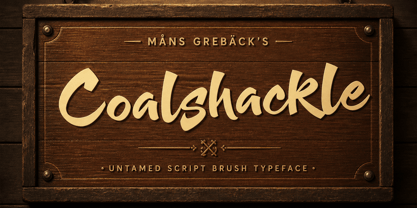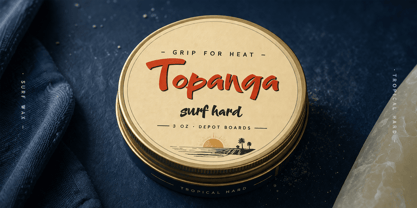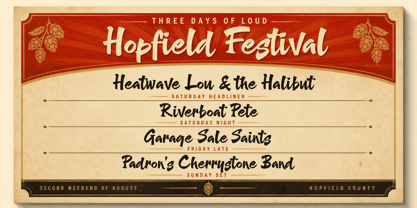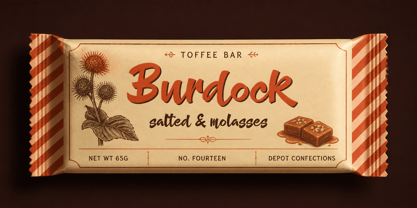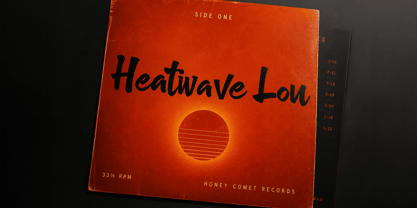
Coalshackle
Coalshackle is a paint-loaded brush script with chunky upright strokes.
The lettering moves like wet paint dragged across rough wood — heavy at the head of each letter and pulled to a slight tail at the foot. The corners are blunt and the joints unfussed. It feels like a working font: friendly enough for a hot-sauce label, blunt enough for a Saturday-night fight card, at home on a hand-painted depot sign or the side panel of a tour van.
The font is built with advanced functionality and guaranteed top-notch quality, containing stylistic and contextual alternates, ligatures and more automatic and manual features; all to give you full control and customizability.
It has extensive lingual support, covering all Latin-based languages, from North Europa to South Africa, from America to South-East Asia. It contains all characters and symbols you'll ever need, including all punctuation and numbers.
Måns Grebäck is a type designer and font creator specializing in script typography, but with a portfolio containing a vast selection of styles. Typefaces from Måns Grebäck are used as company and product logotypes, as well as headlines and in advertisement by a wide range of industries world-wide. Founded by Måns Grebäck in 2010, Mans Greback AB originally went under the name of Mawns Fonts and later Aring Typeface AB. While the foundry has its seat Örebro, Sweden, Måns also lives in Portugal. The Premium Foundry page can be viewed Here.